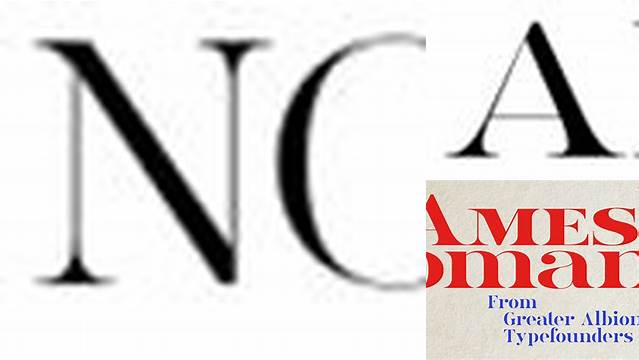
Are you guys on the hunt for the perfect font to elevate your design projects? Look no further! The Ames Roman Light font is a stunning typeface known for its elegance, readability, and versatility. Whether you're working on branding materials, websites, or print publications, this font can add a touch of sophistication and professionalism to your work. In this comprehensive guide, we'll dive deep into everything you need to know about the Ames Roman Light font, including its characteristics, ideal uses, and, most importantly, where to find it for free download. So, let's get started and explore the world of Ames Roman Light!
What Makes Ames Roman Light So Special?
The Ames Roman Light font is a true gem in the world of typography. Its appeal lies in its unique blend of classic Roman characteristics with a modern, lightweight touch. This makes it incredibly versatile, suitable for a wide range of design applications. One of the key features of Ames Roman Light is its exceptional readability. The letterforms are meticulously crafted with balanced proportions and clear strokes, ensuring that text remains legible even at smaller sizes. This is particularly crucial for body text in documents, articles, and websites, where readability is paramount.
Another aspect that sets Ames Roman Light apart is its elegant and refined aesthetic. The font exudes a sense of sophistication and professionalism, making it an excellent choice for projects that require a touch of class. Think of corporate branding, high-end publications, or invitations for formal events. The light weight of the font adds a delicate and airy feel, preventing it from appearing too heavy or imposing. This makes it a great option for designs that aim for a clean and minimalist look.
Moreover, the versatility of Ames Roman Light extends to its compatibility with various design styles. It pairs beautifully with both serif and sans-serif fonts, allowing for creative combinations and visual hierarchy. Whether you're aiming for a traditional or contemporary design, Ames Roman Light can seamlessly integrate into your vision. Its neutral yet distinctive character makes it a reliable choice for designers seeking a font that can adapt to different contexts and aesthetics. The subtle curves and elegant serifs give it a timeless quality, ensuring that your designs remain stylish and relevant for years to come. In short, Ames Roman Light is a typeface that combines functionality with aesthetics, making it a valuable asset in any designer's toolkit.
Ideal Uses for Ames Roman Light
The versatility of Ames Roman Light makes it a fantastic choice for a wide array of design projects. Its clean and elegant appearance lends itself particularly well to projects that require a touch of sophistication and readability. Let's explore some specific scenarios where Ames Roman Light truly shines:
Branding and Logo Design
Ames Roman Light can add a touch of class and professionalism to your brand identity. Its elegant letterforms are perfect for creating logos that convey trust, reliability, and sophistication. Imagine a high-end fashion brand or a financial institution using Ames Roman Light in their logo – it immediately communicates a sense of quality and prestige. The font's readability also ensures that your brand name remains clear and legible across various applications, from business cards to billboards.
Website Design
In the digital realm, readability is king. Ames Roman Light excels in this area, making it an excellent choice for website body text. Its clear and well-defined characters ensure that visitors can easily read and engage with your content. The font's light weight also contributes to a clean and airy aesthetic, which is particularly beneficial for websites that aim for a minimalist design. Additionally, Ames Roman Light can be used for headings and subheadings, providing a consistent and professional look throughout your website.
Print Publications
From books and magazines to brochures and newsletters, Ames Roman Light is a reliable choice for print publications. Its elegant serifs and balanced proportions make it a pleasure to read on paper. The font's versatility also allows it to adapt to different content styles, whether you're working on a formal academic paper or a casual lifestyle magazine. Its ability to maintain readability even at small sizes is crucial for print materials, where space can be limited.
Invitations and Stationery
For invitations, stationery, and other formal correspondence, Ames Roman Light adds a touch of elegance and refinement. Its sophisticated appearance makes it perfect for wedding invitations, thank-you notes, and business stationery. The font's classic Roman style conveys a sense of tradition and formality, while its light weight prevents it from appearing too stuffy or old-fashioned. Using Ames Roman Light in these applications can elevate the overall impression and make a lasting impact.
Editorial Design
When it comes to editorial design, Ames Roman Light is a versatile choice. Its readability and elegant aesthetic make it well-suited for magazines, newspapers, and online articles. The font's balanced proportions ensure that long passages of text are easy on the eyes, while its subtle serifs add a touch of sophistication. Whether you're designing a fashion magazine or a news website, Ames Roman Light can help create a visually appealing and engaging reading experience.
Ames Roman Light is a beautiful and versatile font that can elevate your design projects with its elegance and readability. Whether you're working on branding materials, websites, or print publications, this font can add a touch of sophistication and professionalism to your work. While finding it for free download may require some effort, the results are well worth it. Remember to always verify the font license before using it in your projects, and follow the tips outlined in this guide to make the most of this stunning typeface. So go ahead, explore the world of Ames Roman Light, and let your creativity shine!